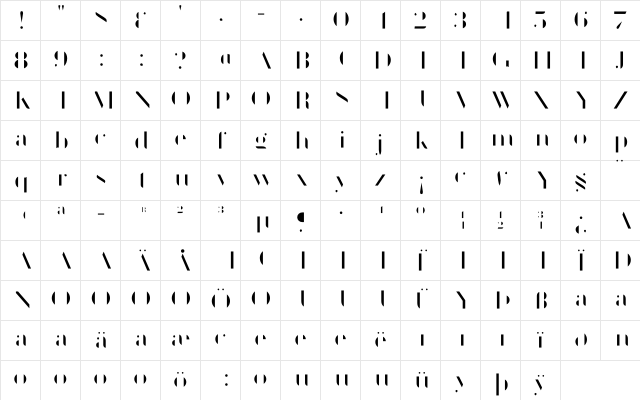
Geotica Three Fill
| Foundry | Jos Buivenga |
| Designer | Jos Buivenga |
Design Context for Geotica Three Typeface
Geotica Three is a composed and adaptable typeface that performs quietly and consistently across a wide range of design contexts.